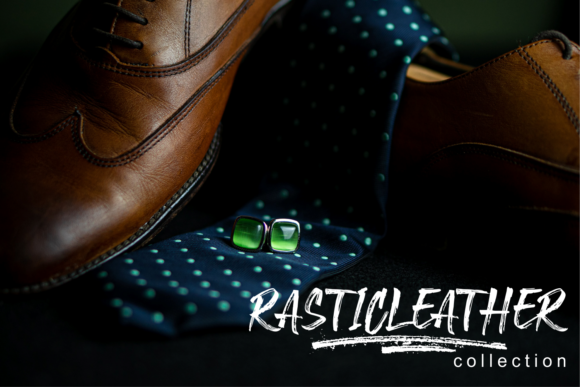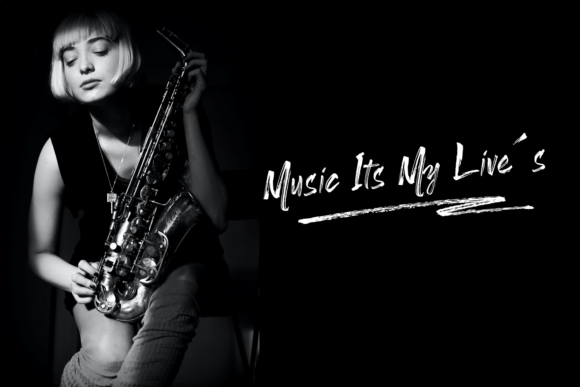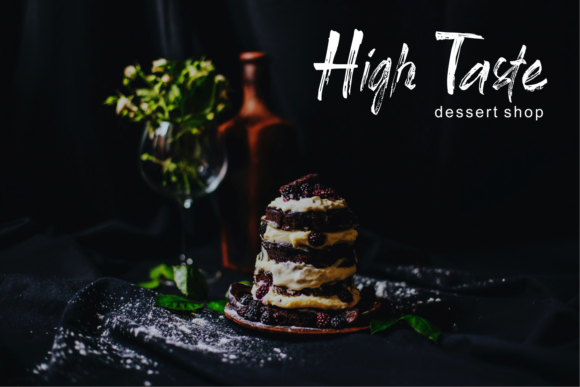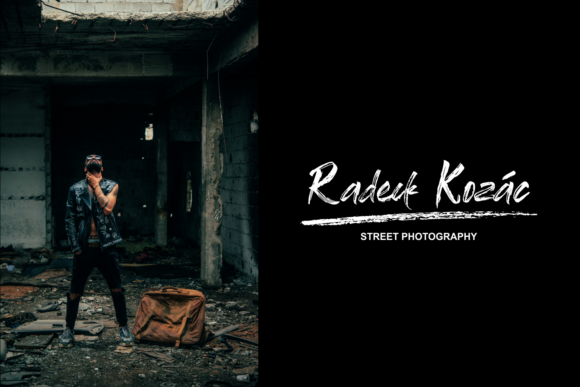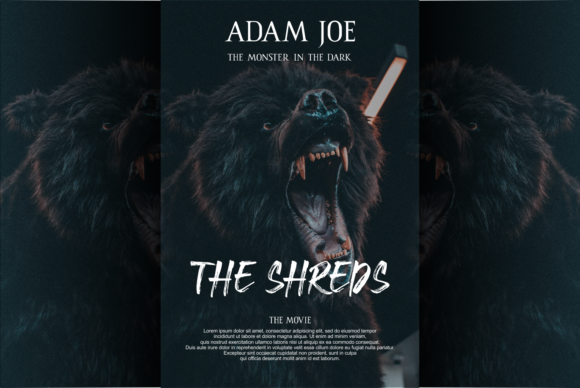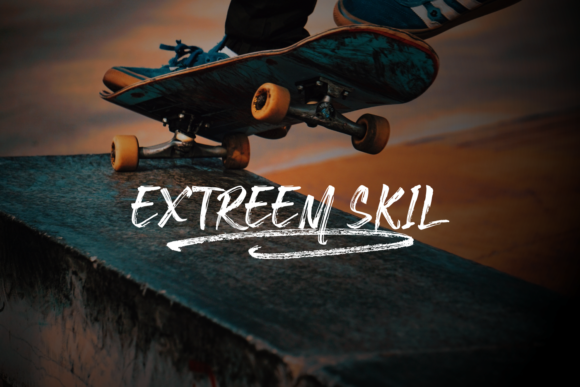
The Brushbress Font: A Game-Changer for Creative Projects
Have you ever been in the middle of a design project, and suddenly, you just can’t seem to find the right font? I know I have. It was a few months ago when I was working on a branding project for a fashion client. I had a clear vision of what I wanted to achieve, but the fonts I had were either too generic or too overused. That’s when I stumbled upon the Brushbress font, and let me tell you, it was a total game-changer! 🤩
What is Brushbress Font?
Brushbress is a handwritten font with a dry brush texture and rough details. It’s been designed to suit a variety of projects such as business branding, Instagram quotes, blog headers, fashion apparel, sports communities, film, photography, hobbies, and much more. This font is PUA encoded, which means you can access all of the glyphs and swashes with ease! ✨
- 💯 The dry brush texture gives it a unique, hand-crafted feel that’s perfect for creative projects.
- ✅ The font is highly versatile and can be used for a wide range of applications.
- 🎉 The PUA encoding makes it easy to access all the glyphs and swashes.
- 👍 The font is well-designed and visually appealing.
While I absolutely love the Brushbress font, there are a few small quirks to be aware of. For example, ⚠️ some of the glyphs can be a bit finicky to access, but once you get the hang of it, it’s a breeze. 🤔 Additionally, the font may not be suitable for very formal or traditional projects, as it has a distinctly creative and playful vibe.
The Brushbress font was designed with the creative hobbyist in mind. The designer wanted to create a font that was both unique and versatile, with a dry brush texture that would add a touch of personality to any project. The result is a font that’s perfect for designers, crafters, and creative hobbyists who want to add a little something extra to their work.
Q: What is the Brushbress font?
A: The Brushbress font is a handwritten font with a dry brush texture and rough details. It’s perfect for creative projects that require a unique, hand-crafted look.
Q: Is the Brushbress font PUA encoded?
A: Yes, the Brushbress font is PUA encoded, which means you can access all of the glyphs and swashes with ease!